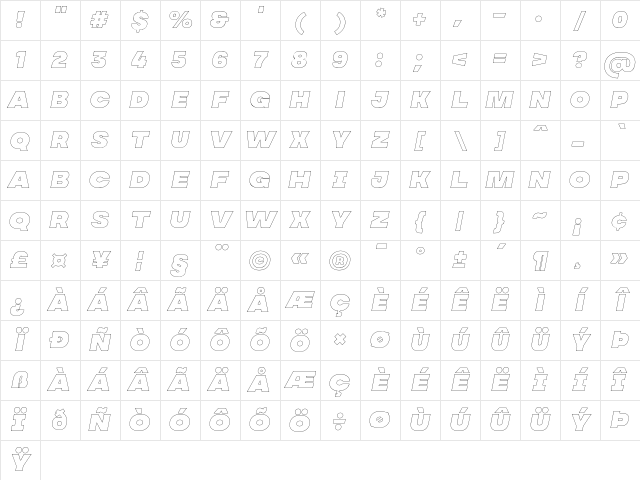
Complete MADE Soulmaze Outline Italic glyph index. Displaying only characters natively supported by MADE Soulmaze Outline Italic font.
MADE Soulmaze Outline is built around its visual character rather than neutral utility - its distinctive forms are designed to make an impression at display sizes. The slanted form adds forward momentum and visual energy.
Font Pairing: Pair with a clean neutral sans-serif for body copy to let MADE Soulmaze Outline's character lead without overwhelming the composition.
Pro Tip: Use MADE Soulmaze Outline exclusively at display sizes - it was designed to be seen, not read at length. Let a neutral companion handle body copy.